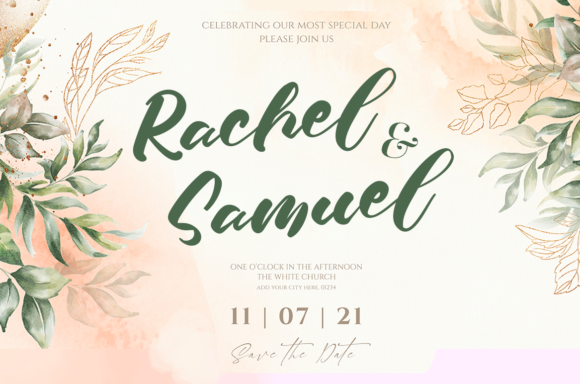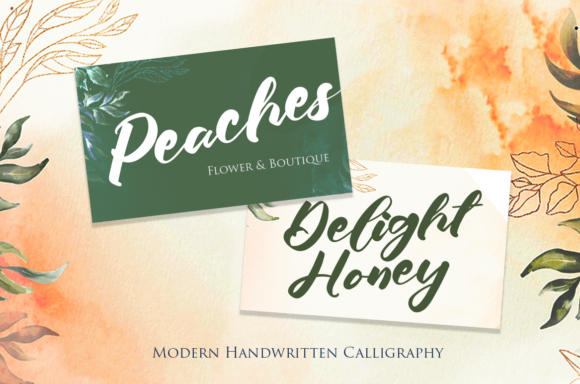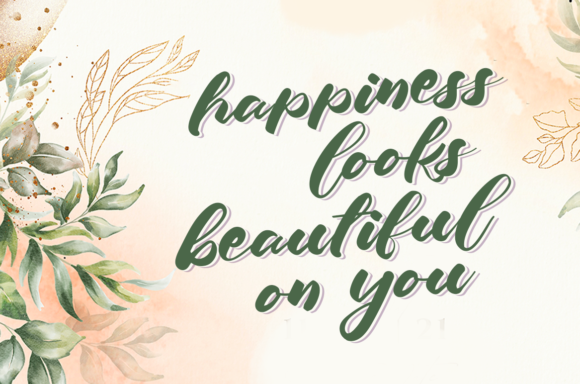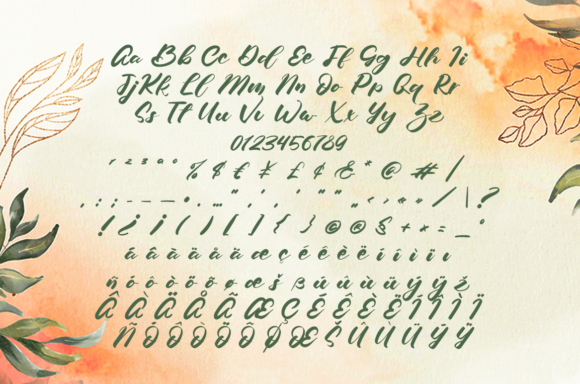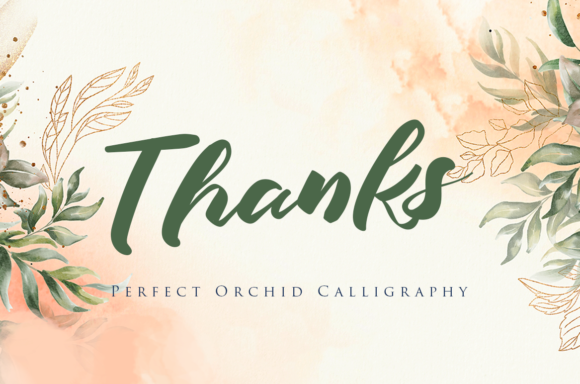
Introduction to Perfect Orchid Font
As a designer, have you ever found yourself stuck in a creative rut, searching for that perfect touch to elevate your project? Perhaps you’re crafting a bespoke invitation, or adding a personal touch to a wedding program. Whatever your creative endeavor, I’m sure you’ll agree that the right font can make all the difference.
That’s where the Perfect Orchid Font comes in – a high-quality, handwritten masterpiece that’s sure to bring your creative project to life. With its elegant calligraphic influences and contemporary feel, this font is the perfect design resource for any creative endeavor. And the best part? It’s available for free download, making it an accessible addition to your design toolkit.
Key Features of Perfect Orchid Font
- High-quality design resource ideal for creative projects requiring elegant typography
- Features a transparent background, allowing for easy customization and versatility in design applications
- Designed with a delicate and intricate style, making it perfect for wedding invitations, stationery, and other romantic themes
Honest Review: Perfect Orchid Font
As a designer, I’m always on the lookout for high-quality design resources that can elevate my creative projects. Recently, I had the chance to work with the Perfect Orchid Font, and I’m excited to share my honest review with you.
Here’s what I loved about this font: ✨ It has a beautiful, elegant design that works perfectly for any project that needs a touch of sophistication. ✨ The transparent background makes it easy to use on any color scheme, and ✨ it’s free to download, which is always a bonus.
However, I did encounter a few limitations with this font: ⚠️ The font doesn’t support certain special characters, which can be a problem if you need to include them in your project. Additionally, the font can be a bit difficult to read at smaller font sizes.
Overall, I think the Perfect Orchid Font is a great addition to any designer’s toolkit. While it may have a few limitations, its beautiful design and free download make it a valuable resource for any creative project.
Perfect Orchid Font
The Perfect Orchid Font is a high-quality design resource that offers a unique and elegant touch to any creative project. This font is available for free download and features a transparent background, making it perfect for overlaying on images or backgrounds.
The Perfect Orchid Font is ideal for:
- Branding and logos.
- Business cards and brochures.
- Photography captions and overlays.